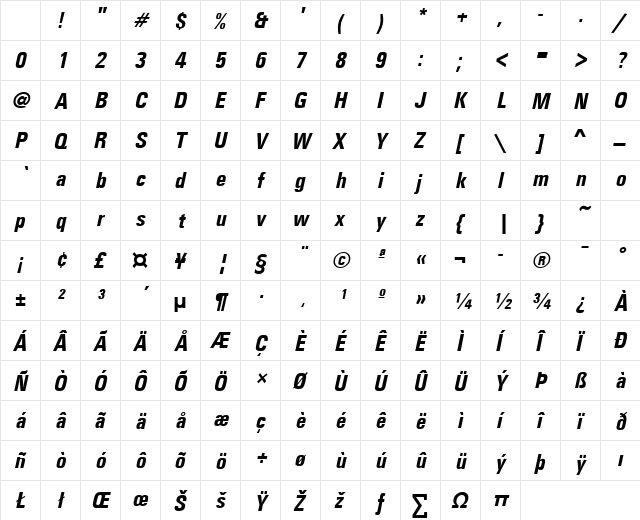
UnitusCond is a composed and adaptable typeface that performs quietly and consistently across a wide range of design contexts. The slanted form adds forward momentum and visual energy. Its bold stroke weight gives it real presence on the page. Its narrow stance lets it pack a punch even in space-constrained designs.
Pro Tip: Use UnitusCond for emphasis, pull quotes, and subheadings where its slanted energy can add rhythm to the layout.